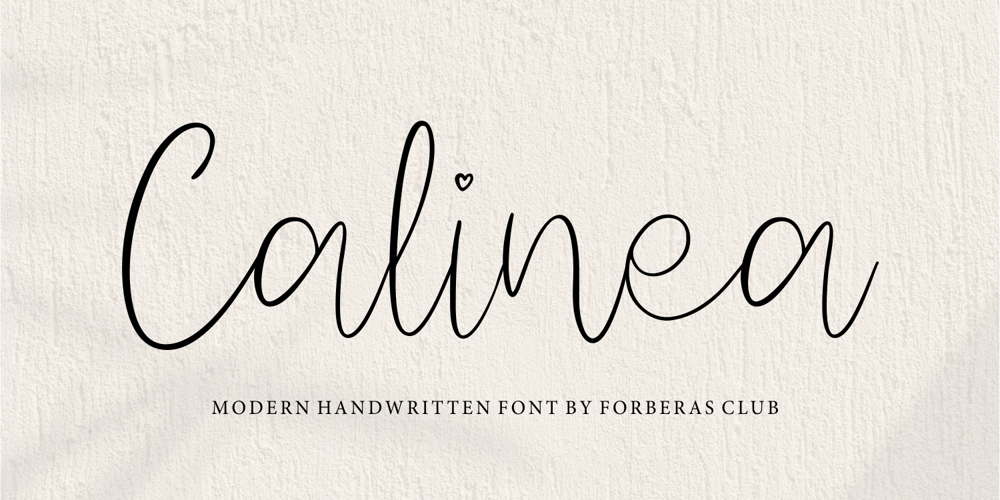
Calinea Font Family was designed by ANGGI HERMAWAN and published by Forberas Club. Calinea contains 1 styles and family package options. Calinea is thin handwritten style. Make it look simple and beauty. Recommended to use for memorable moment, beauty product, beauty tag and wedding invitation.